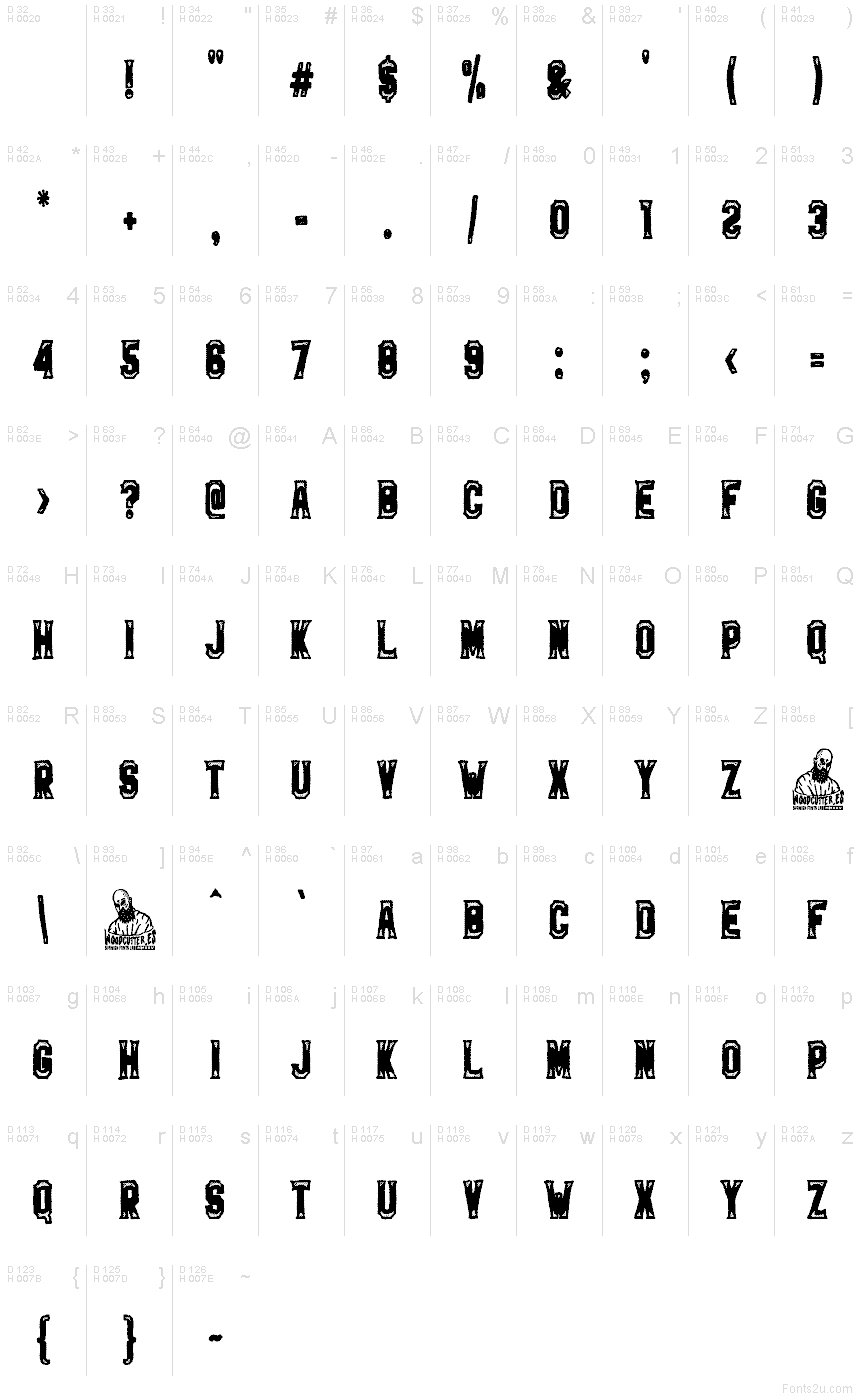
The Steel Tree
The Steel Tree font by Woodcutter is a free decorative display typeface. Its letterforms feel hewn from rough bark and cold metal at once—chunky stems, sawtooth edges, and a gritty inner grain that reads like wood fibers over stamped steel. The texture isn’t random; it forms a steady rhythm that holds together at big sizes, delivering bold impact without turning into visual mush.
Using The Steel Tree, you can punch up gig posters, survival or horror titles, eco‑industrial branding, craft beer labels, T‑shirt graphics, and event signage. The sturdy spacing keeps words compact and punchy, so short headlines hit hard and stay legible. For balance, pair this free font with a plain, condensed sans for body copy, and keep The Steel Tree two sizes larger to let the texture breathe.